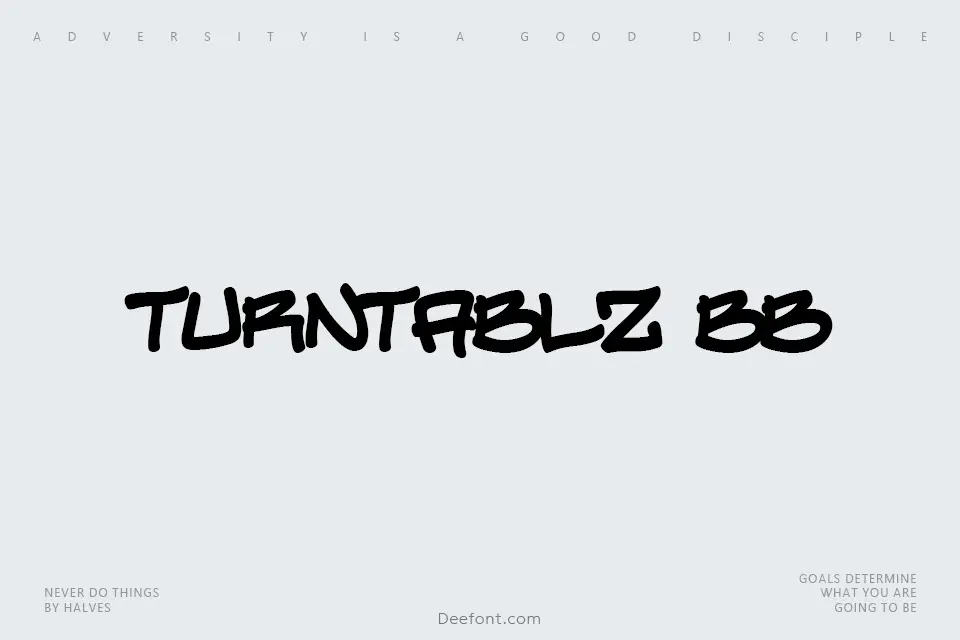
Turntablz BB Font
Turntablz BB is a bold, graffiti-inspired font with a playful, hand-drawn style featuring dynamic flow and urban aesthetic. Designed by award-winning typographer Nate Piekos, this energetic script font showcases rounded edges and a slight slant that conveys movement. Perfect for posters, album covers, street art-themed designs, and creative branding projects requiring casual street-art feel. The font maintains consistent style across uppercase, lowercase letters, numbers and special characters. With 92 carefully crafted glyphs, Turntablz BB delivers a cohesive look ideal for headlines, logos and eye-catching typography.